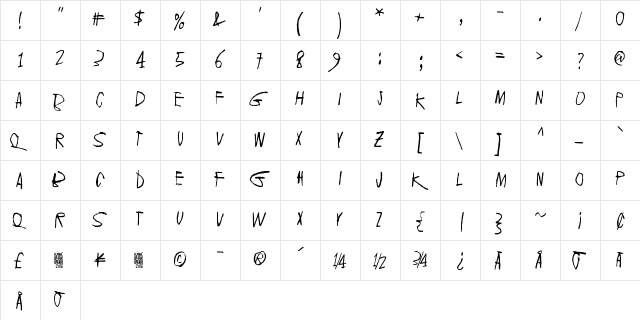
2016 Bugs Regular Font Preview
2016 Bugs Regular
2016 Bugs Regular Font Details
Design Context for 2016 Bugs Typeface
2016 Bugs is a composed and adaptable typeface that performs quietly and consistently across a wide range of design contexts.